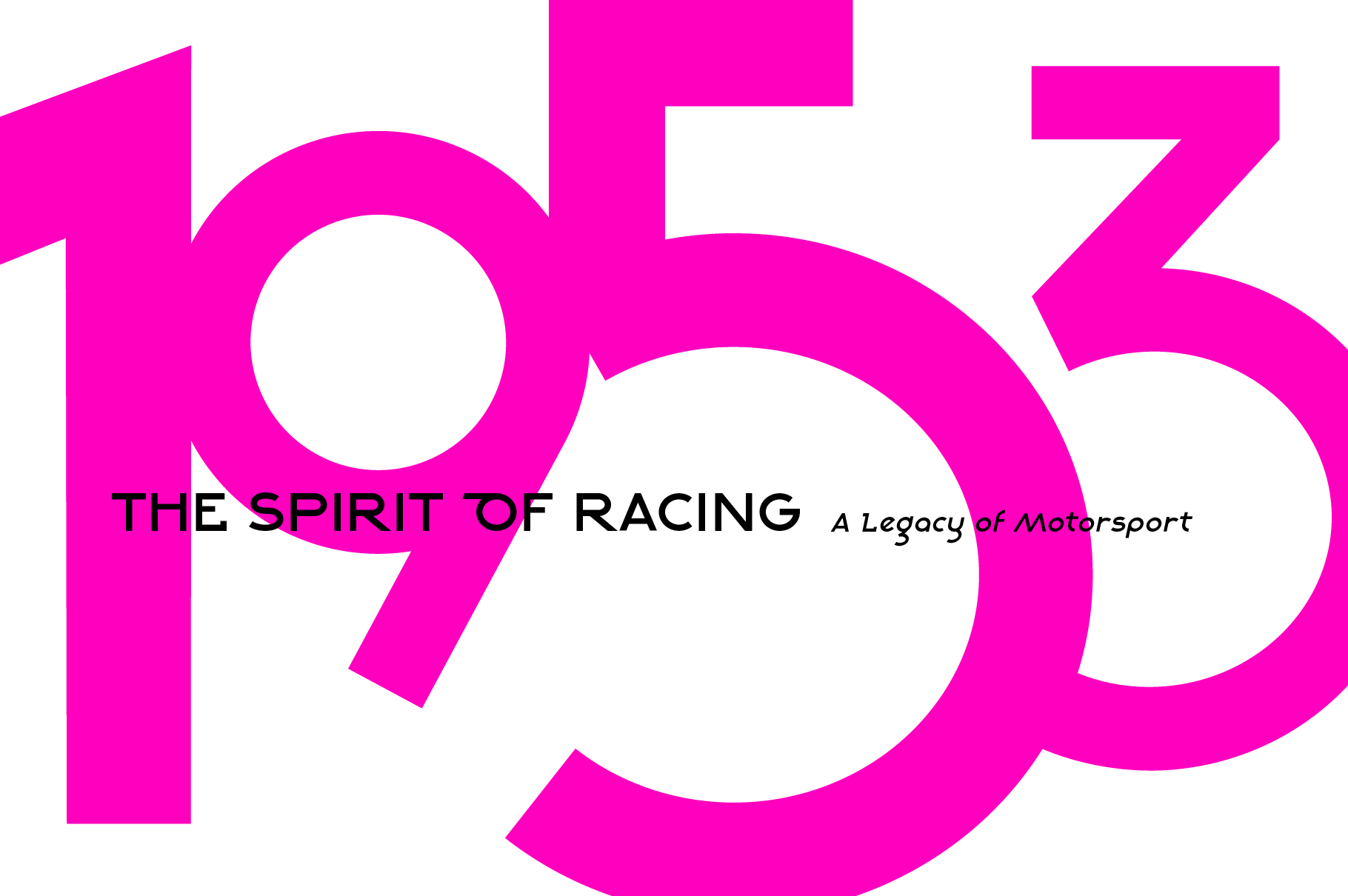
Alpha Strada | Clean Racing Sans-Serif Font
Alpha Strada is a versatile display font with bold personality, heritage flair, and a luxury feel. It’s built for high-end branding, editorial design, and retro-modern visual identities.
A clean sans serif font with a sporty underline inspired by vintage car emblems.
Alpha Strada is a versatile display font with bold personality, heritage flair, and a luxury feel. It’s built for high-end branding, editorial design, and retro-modern visual identities.
Taking its name from a wordplay on alphabet and autostrada, Alpha Strada draws inspiration from classic Italian automobiles, mid-century car badging, and the geometric elegance of Art Deco. Each character has been tailored to reflect a sense of speed and poise: sharp terminals, bold tapers, and balanced symmetry give it a commanding yet refined presence. It’s ideal for branding, packaging, editorial, and signage—any application where legacy, craftsmanship, and high design are essential.
Alpha Strada echoes the spirit of the 1950s: a time of optimism and sophisticated design. It draws directly from the clean lines and geometry of Art Deco—the movement that championed precision, ornament, and the beauty of balance.
It blends this bold Deco influence with the warmth of Italian automotive design, creating a font that is both timeless and contemporary.
In its regular configuration, Alpha Strada includes uppercase and lowercase characters, numerals, and multilingual support, along with stylistic alternatives—perfect for sub-headings or body copy. The Racer style introduces a classic sports underline, reminiscent of vintage car branding—ideal for logos and titles. Shift up a gear with SuperCaps, a decorative take on the capitals that adds dynamic flair and visual drama. All styles include matching italic versions for added versatility.
Vintage Italian Car Logos
Alpha Strada: Regular Font
Alpha Strada: Regular. A clean, sans serif font that works as complimentary copy text for the headline Racer style.
Alpha Strada: Racer Font
Alpha Strada: Racer. The headline display font that carries through the vintage baseline (or underline) look.
CONCEPT AND REVISION
Illustrated by this pencil sketch, my initial concept for this font was based on underline curves joining each letter like a script font, with half circular shapes reflecting the main characters above. While this created an effective flow with specific letter combinations, I found it hard to master when used across the full alphabet. This led to further exploration of alternative styles before deciding on a straight underline look that was immediately reminiscent of chrome badges on classic cars.
Racing Car Branding and Art Deco Signage
This is typical of how my projects unfold. A simple idea will lean into a direction that I wasn’t necessarily aiming for, but seems obvious when I hit on, ‘the look’. Research into usage cases for this style of lettering revealed countless examples of car branding as expected, but also European art deco signage, American diners, and more contemporary uses on album covers— all aspects to keep in mind for this design and future projects.
Unused concept fonts
Plenty of experimentation was conducted with the joining elements, gradually moving away from the initial half-circle concept to a more tick-like shape, and eventually a simplified straight line. The circular joined proved problematic when connecting letters with sharp diagonals like ‘x’ and ‘y’, causing the letters to lose their underlying geometry and appear awkward. Therefore, this idea is set aside for another font where I have more flexibility with the letter shapes.
Alpha Strada: Luxury Type Inspired by Vintage Car Emblems
UNDER THE HOOD: Using the Alternative Characters
Racing Logo Designs
The perfect font for brands with a racing heritage.
Alpha Strada, designed for functionality, also offers ‘Starters’ and ‘Stoppers’. These are additional options that provide a clean start or end to any text combination. For example, in the GIRO example, the regular font variant leaves a trail on either side of the text, which may not be desired. To address this issue, you can simply switch characters as needed. In this case, I’ve used the starter ‘G’ and stopper ‘O’ to create a visually symmetrical treatment. The addition of a matching border demonstrates this font’s potential in logo design.
Alpha Strada: Alternative Characters
SuperCaps - Racing Capitals
Besides the italics that are available for all styles, this font also includes a selection of alternative characters that can dramatically alter the appearance of your text. For instance, the lowercase ‘e’ can be changed from a tilted to a straight configuration, and the angular or curved ‘M’s, ‘A’s, and ‘F’s can also be accessed from the Glyphs panel in most programs that handle type. Additionally, there’s the SuperCaps variant, another alternative that adds a go-faster stripe to the capitals, making this a highly versatile font is suitable for logos, editorial content, and more.